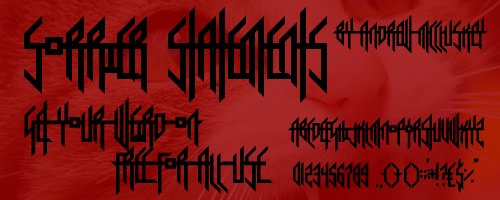
Preview and download Sorrier Statements Font. Created by NALGames in Gothic Modern styles with 100% Free license.
Sorrier Statements have never been said. A very abstract font, inspired by a multitude of musical genres like metal and dubstep. Use dashes to join letters (most join with a horizontal line). Free for all use. Notification on use, commercial or otherwise, is not required, but I genuinely love it when you do - so please consider quickly dropping a line! I don't bite, and I won't refuse you permission to use the font regardless of how it's being used. Credit is much of the same - not required, but it makes me smile when people do :) You're also welcome to donate if you like/use the font (PayPal: nal[at]nalgames[dot]com, or just use DaFont's built in Donate link), but again, optional! |